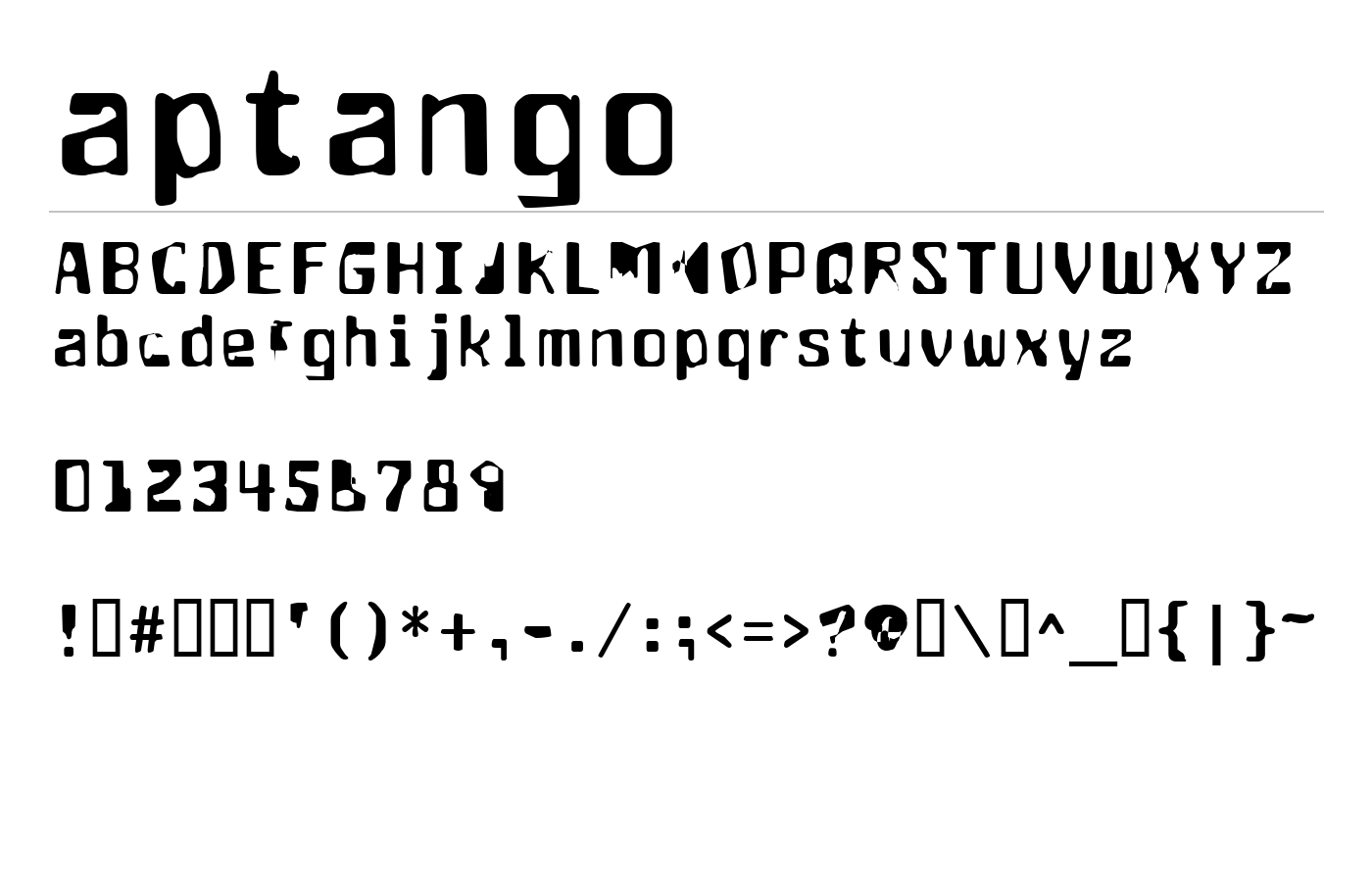
Aptango is a distinctive sans serif font with a slightly condensed, blocky appearance and irregular, playful shapes that give it a quirky, handcrafted character. Its medium weight and uniform stroke contrast combined with unique letterforms, such as the angled tail on the 'g' and the varied cap heights, make it ideal for creative designs that want to stand out with a bold, unconventional style. Perfect for eye-catching logos, posters, or editorial projects, Aptango brings a modern yet artistic vibe that feels both approachable and expressive.
aptango Font